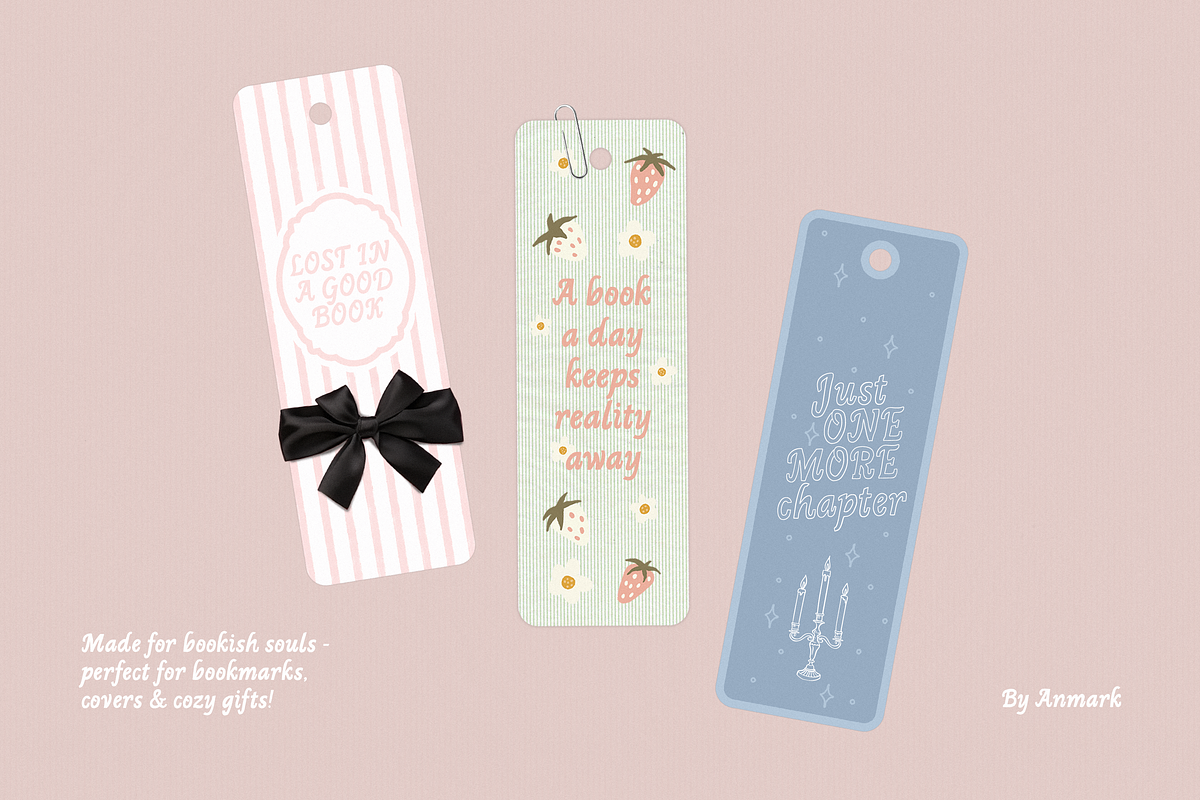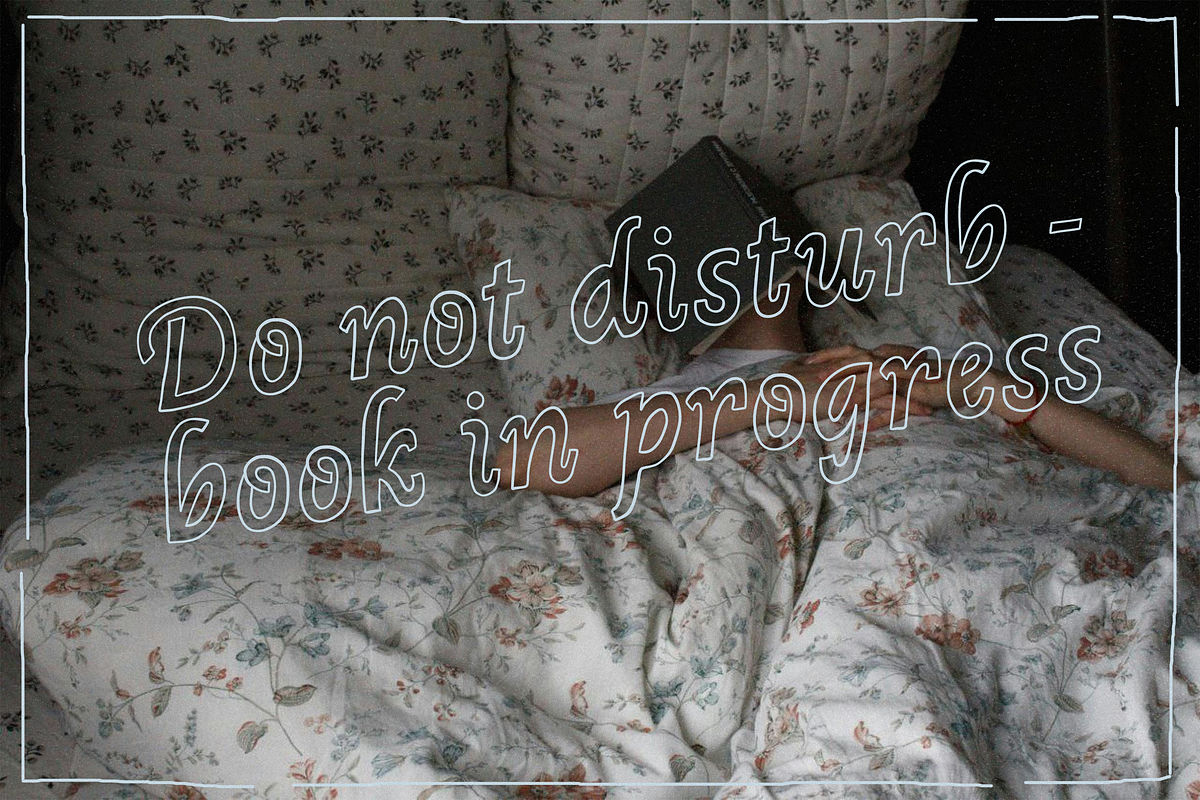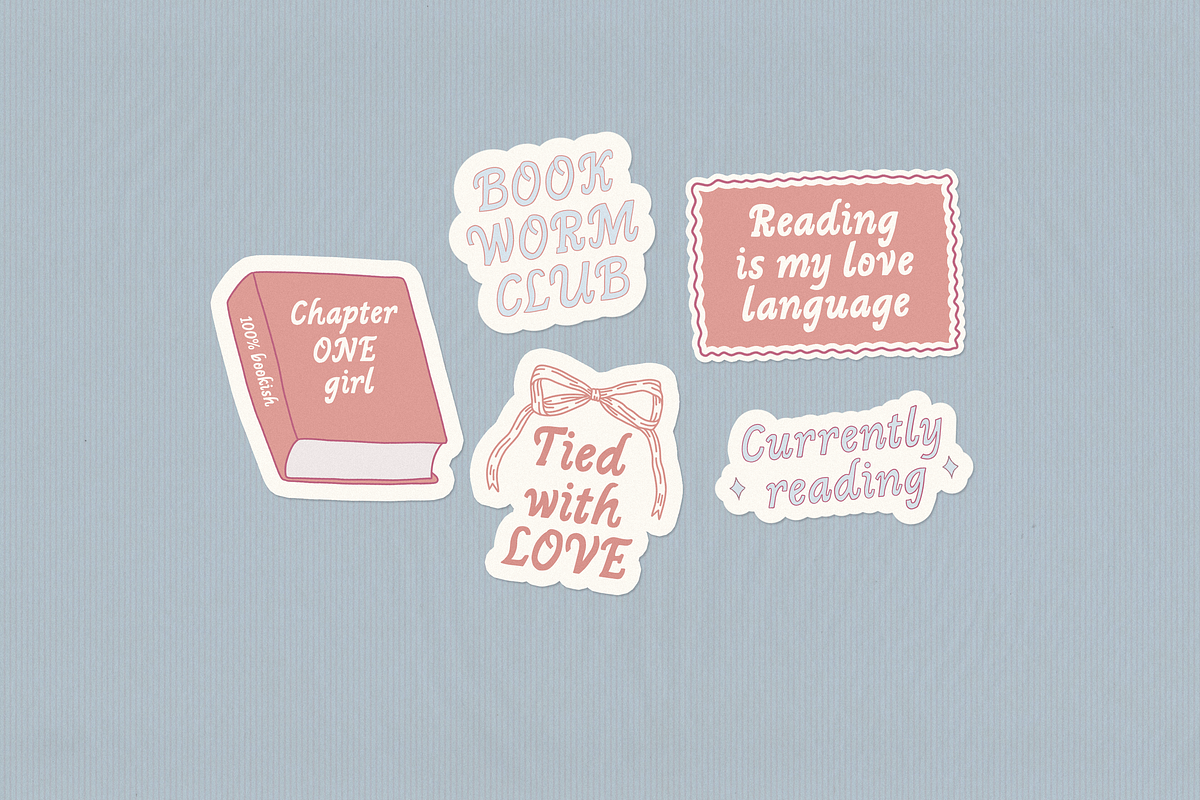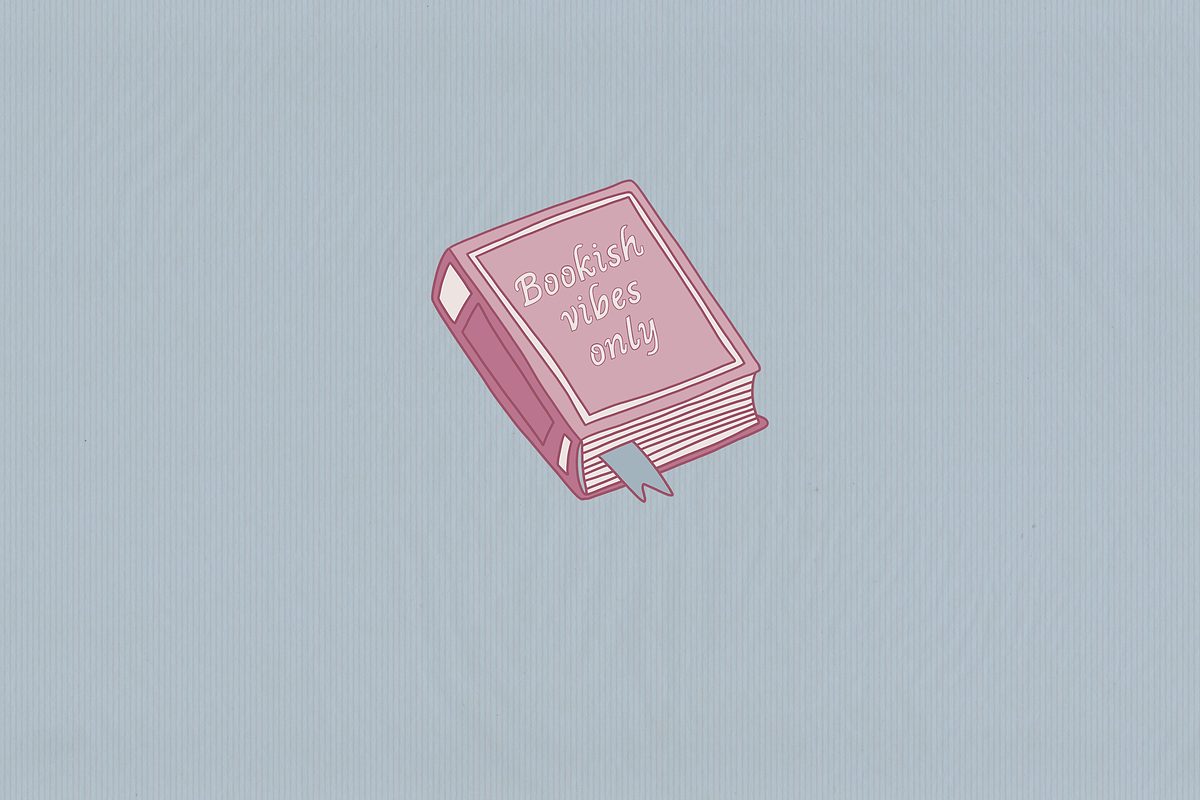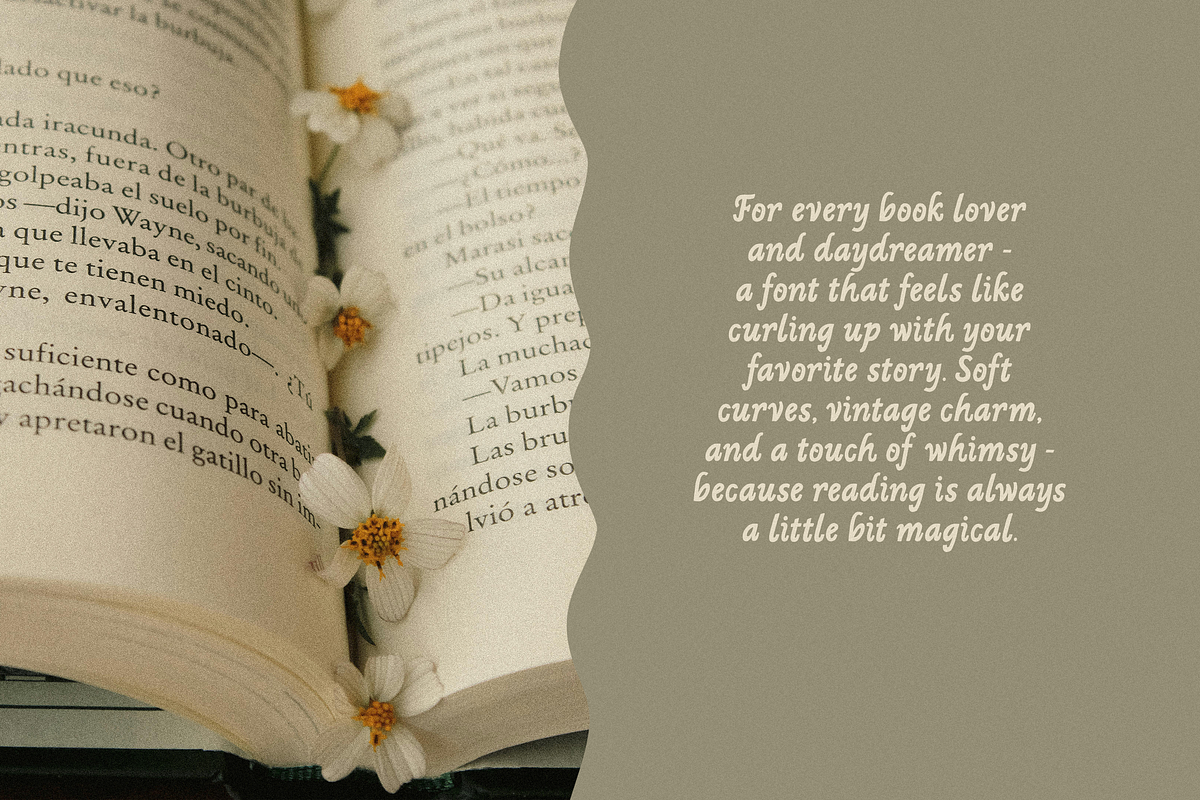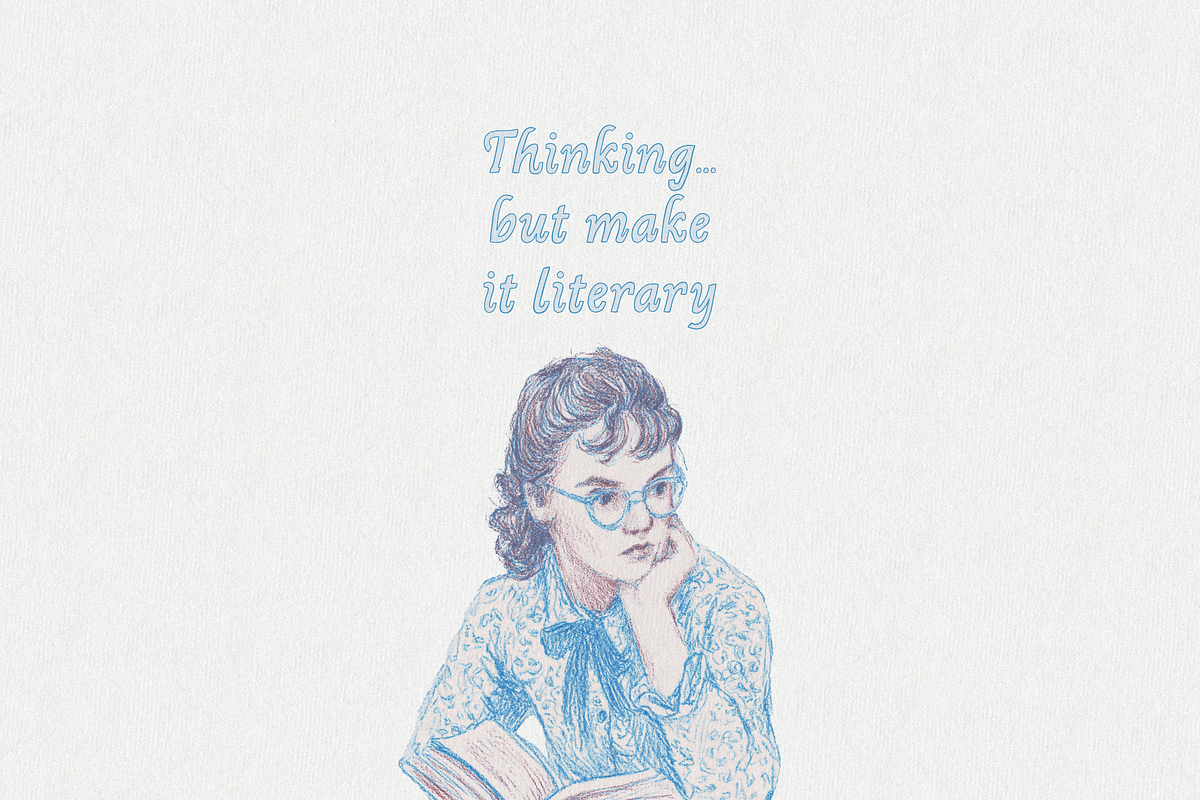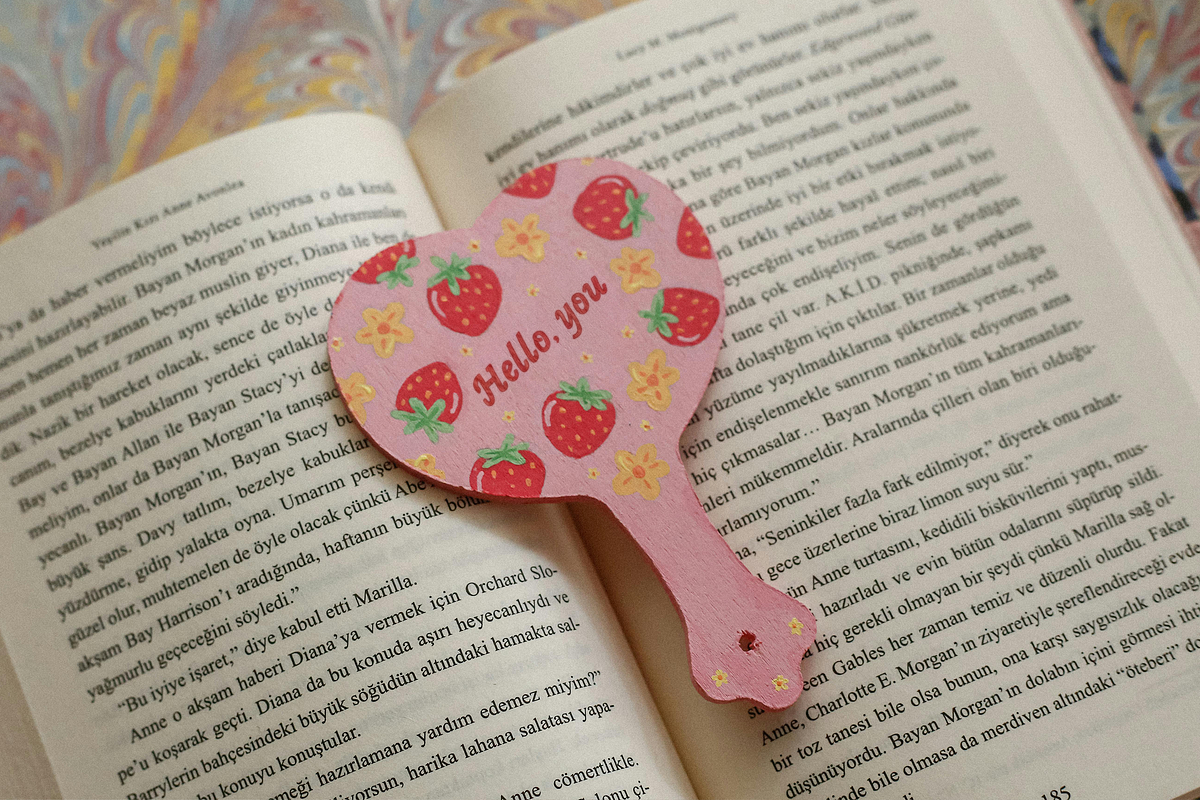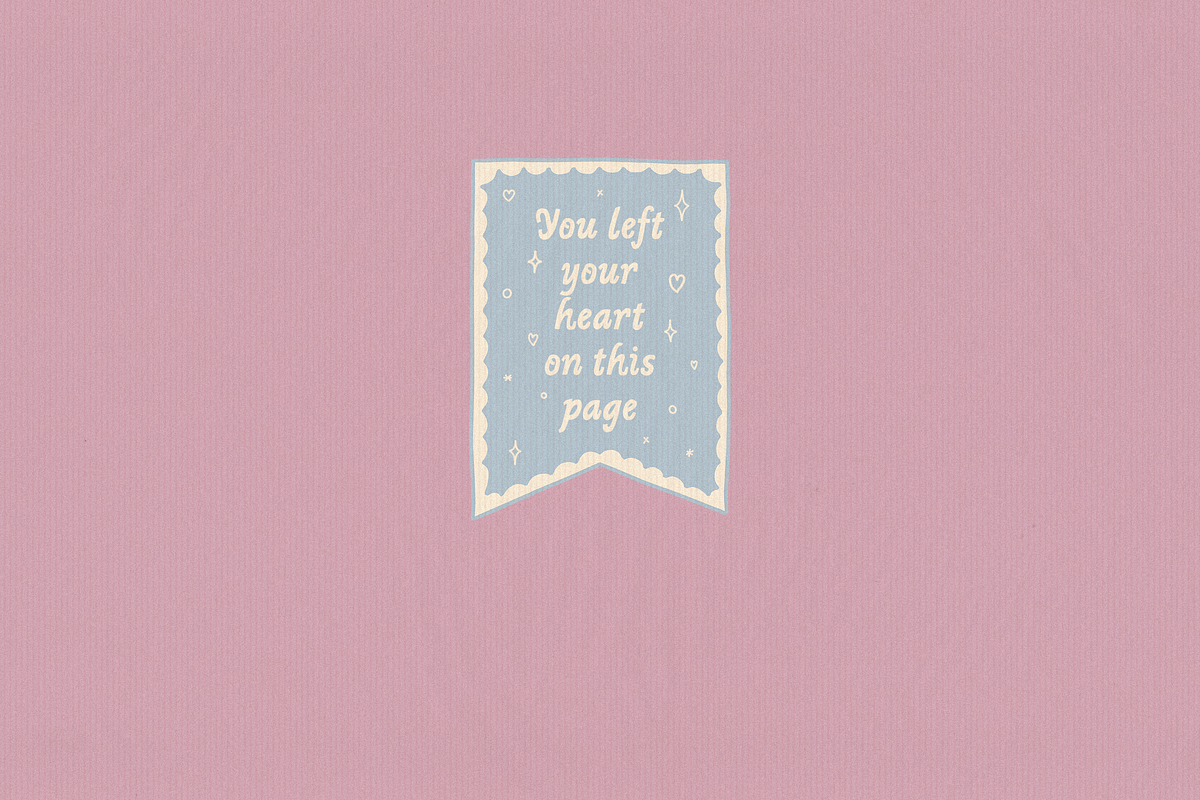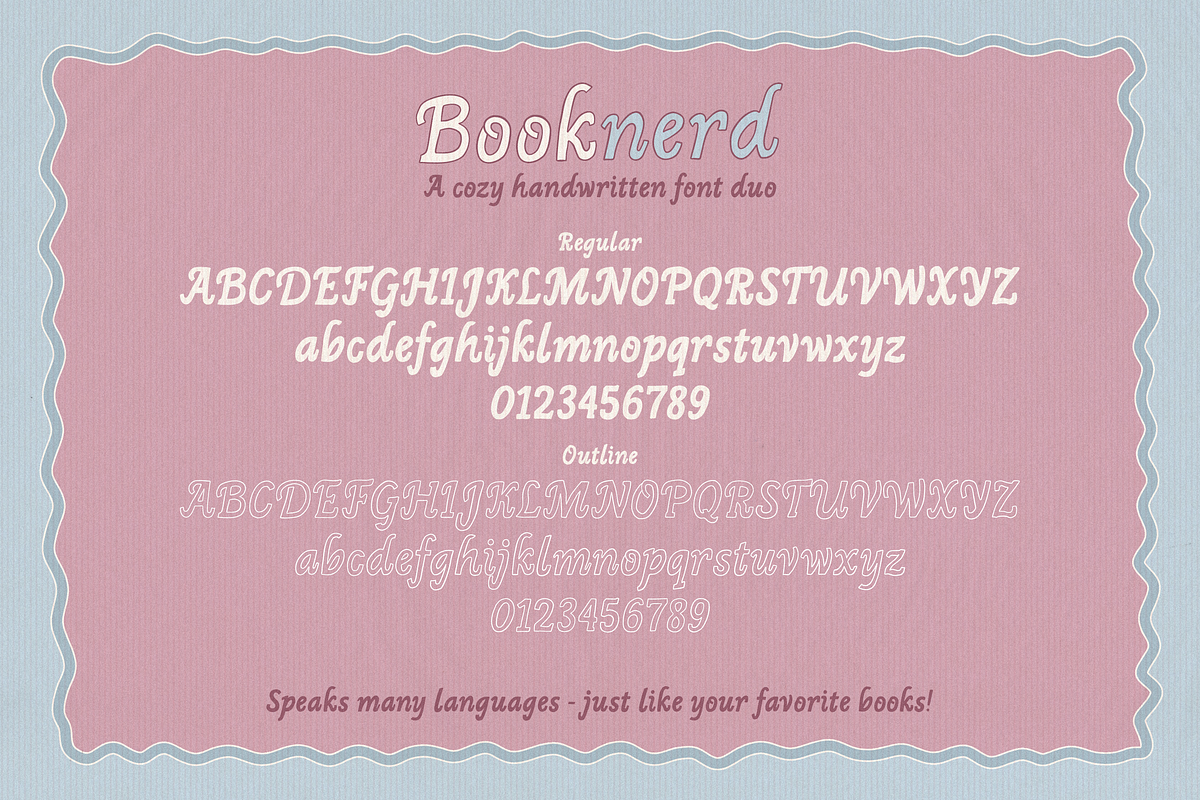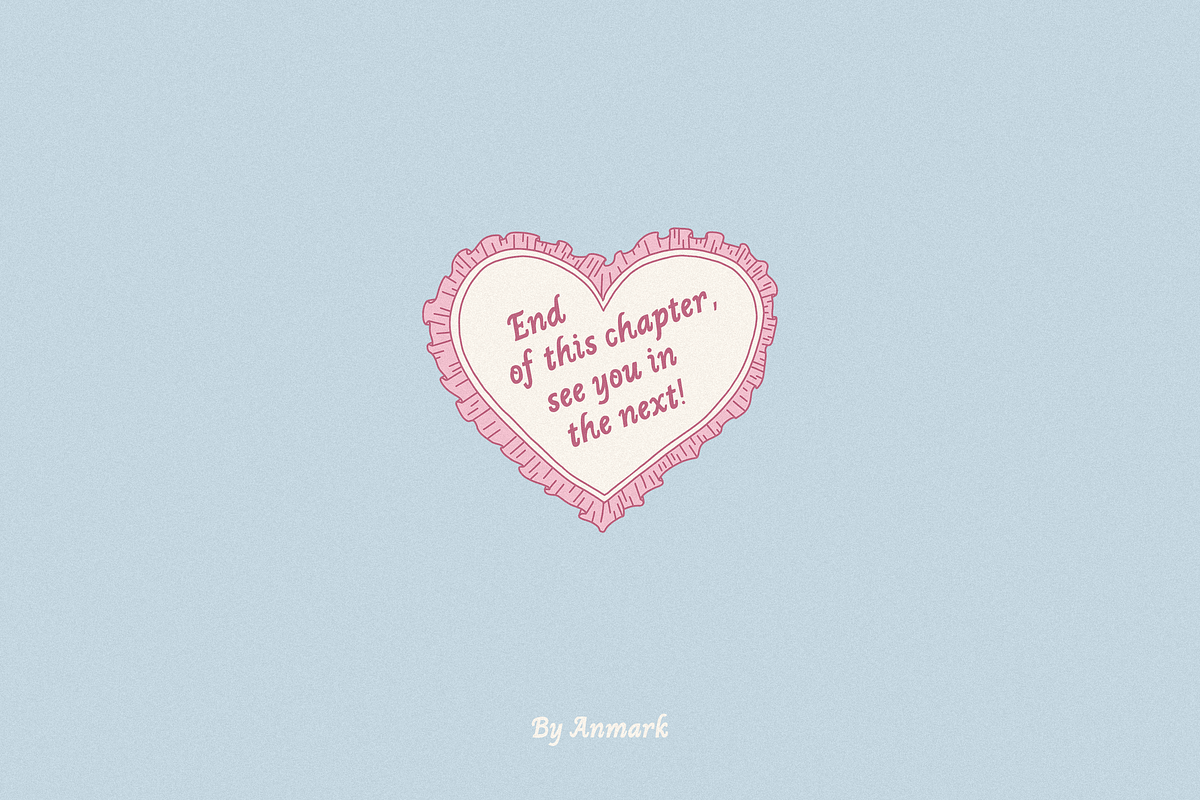
Booknerd | Handwritten Font DUO
Say hello to Booknerd - the font that smells like old pages, hot tea, and a cozy reading nook. With two styles - Regular and Outline - this typeface brings just the right mix of charm and quirk to your creative projects.
Booknerd is made for the romantics and the readers, the bookmark hoarders and wedding dreamers. Use it for invitations that feel handwritten, bookmarks that beg to be gifted, cute merch for your book club, or packaging that whispers "found in a tiny indie bookstore." It's especially lovely for wedding stationery - think dreamy invites, welcome signs, and heartfelt thank-you notes.
And yes - it speaks many languages! With extended multilingual support, Booknerd is ready to travel from English novels to French poetry to your favorite Scandinavian crime series.
Basically, if you love stories - this font loves you back.